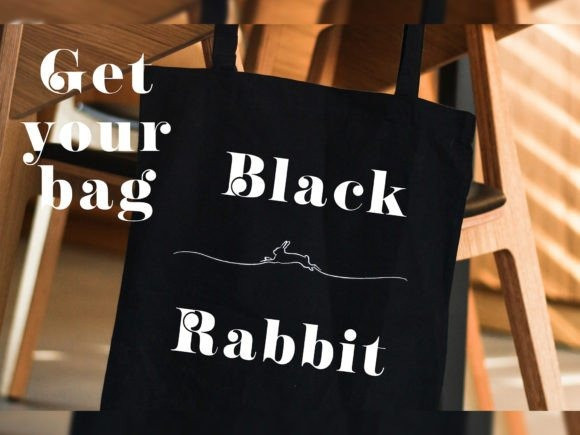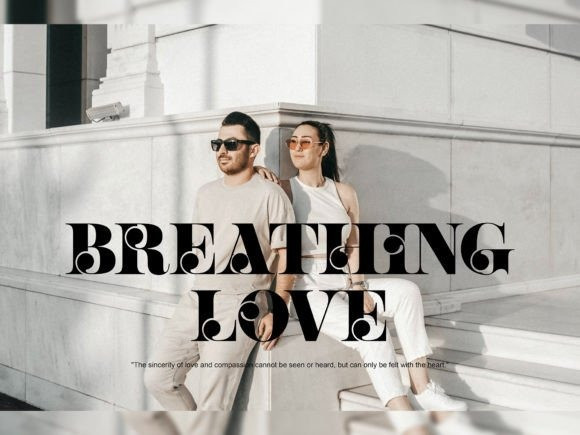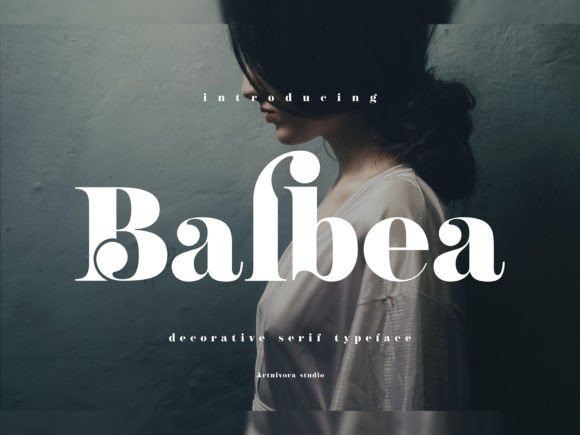
Balbea Font
Balbea Font is a timelessly sophisticated serif font, exuding refined charm and grace. Its meticulously crafted details and balanced strokes make it an exquisite choice for adding a touch of elegance to any project.